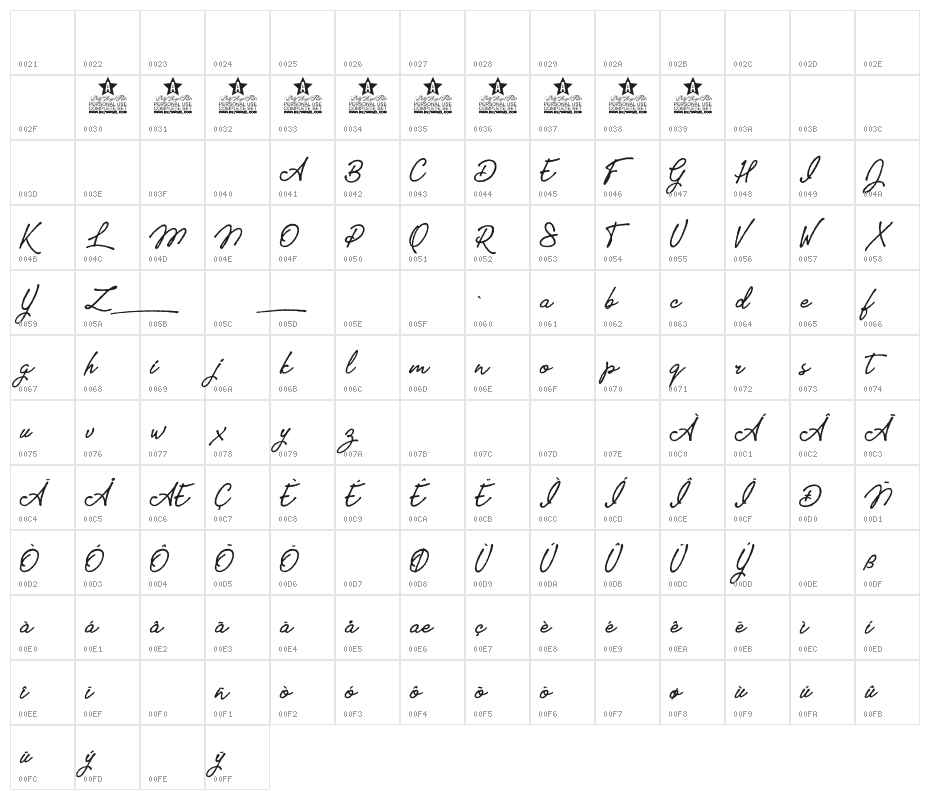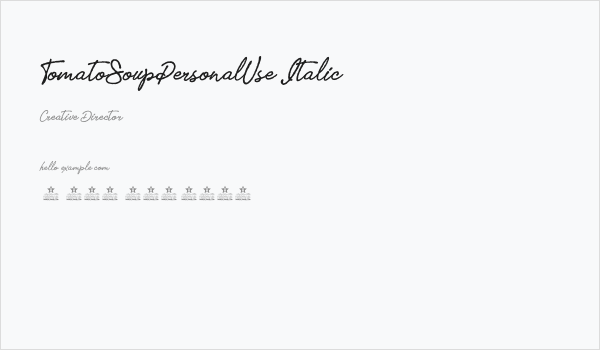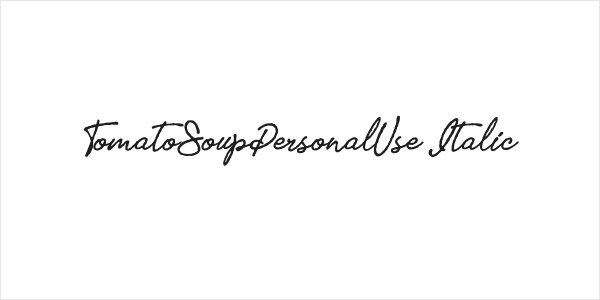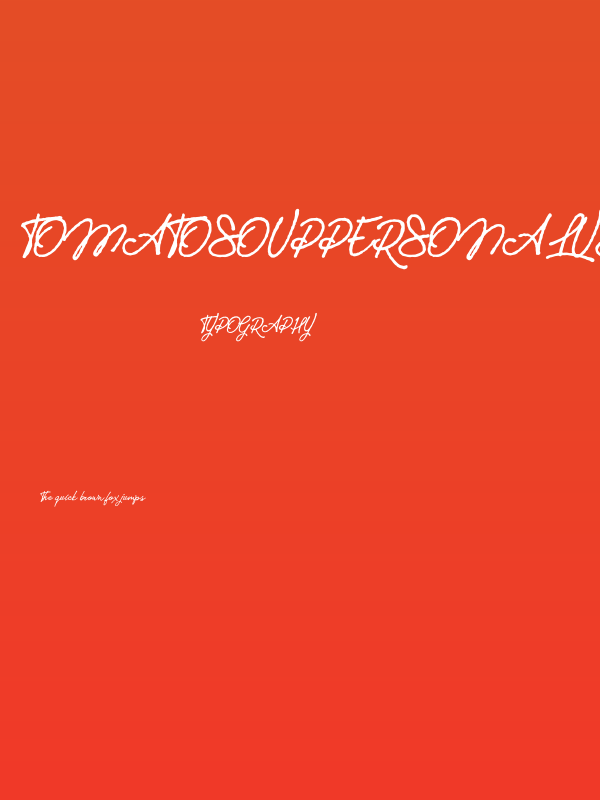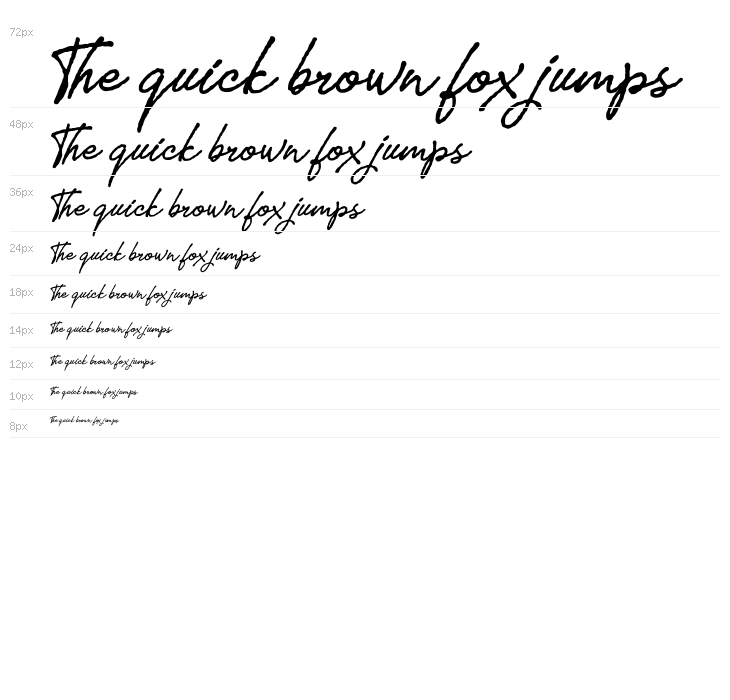
TomatoSoupPersonalUse-Italic Font
TomatoSoupPersonalUse-Italic Description
This font features a dynamic and flowing script style, characterized by its elegant and cursive letterforms. The strokes are smooth and connected, giving it a handwritten appearance. The uppercase letters are bold and prominent, while the lowercase letters maintain a consistent fluidity. The font exudes a personal touch, making it suitable for projects that require a warm and inviting feel. Its italic nature adds a sense of movement and grace, enhancing its overall appeal.
Use CaseLogos, Invitations, Decorative text
Proposed ProjectsIdeal for wedding invitations, greeting cards, personal branding, and decorative signage.